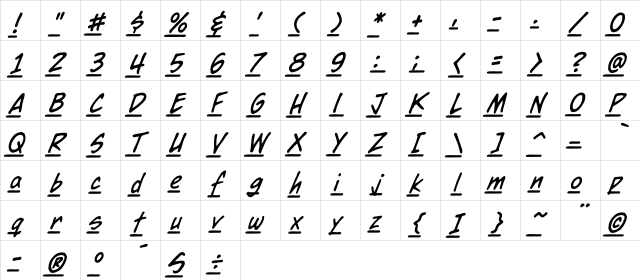
CCDearDiary is a composed and adaptable typeface that performs quietly and consistently across a wide range of design contexts. Its bold stroke weight gives it real presence on the page.